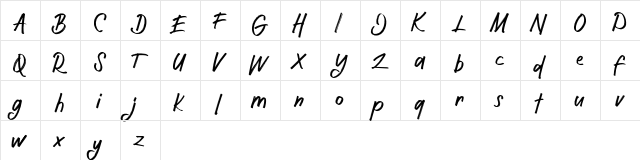
Eather FREE Regular
Design Context for Eather FREE Typeface
Eather FREE is a composed and adaptable typeface that performs quietly and consistently across a wide range of design contexts.
Pro Tip: Use Eather FREE in both headline and body roles to test its range before committing to a single application.